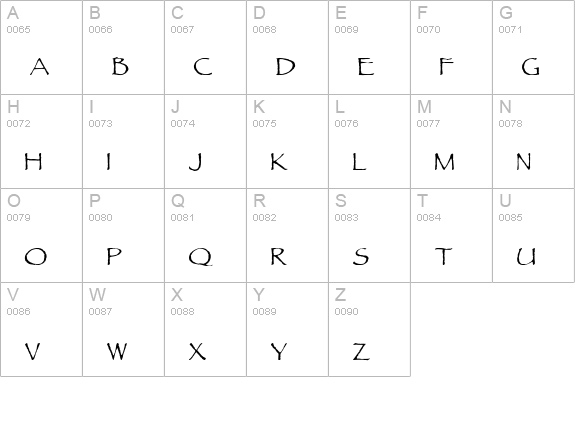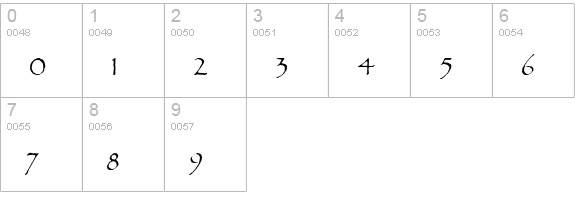
Parchment MF Font Details
Parchment MF is a timeless and elegant font that exudes sophistication and class. Its intricate details and delicate strokes give off an air of old-world charm, perfect for projects that require a touch of vintage appeal. The flowing curves and ornate flourishes of Parchment MF make it ideal for use in elegant invitations, formal documents, and stylish branding materials. The best part about Parchment MF is that it is completely free to download at FontsMarket.com. This means that you can add this exquisite font to your collection without any cost, making it a valuable asset for any designer or creator. With its versatility and timeless beauty, Parchment MF is sure to elevate your designs and leave a lasting impression on anyone who sees them. Download Parchment MF today and experience the beauty and elegance of this stunning font for yourself.